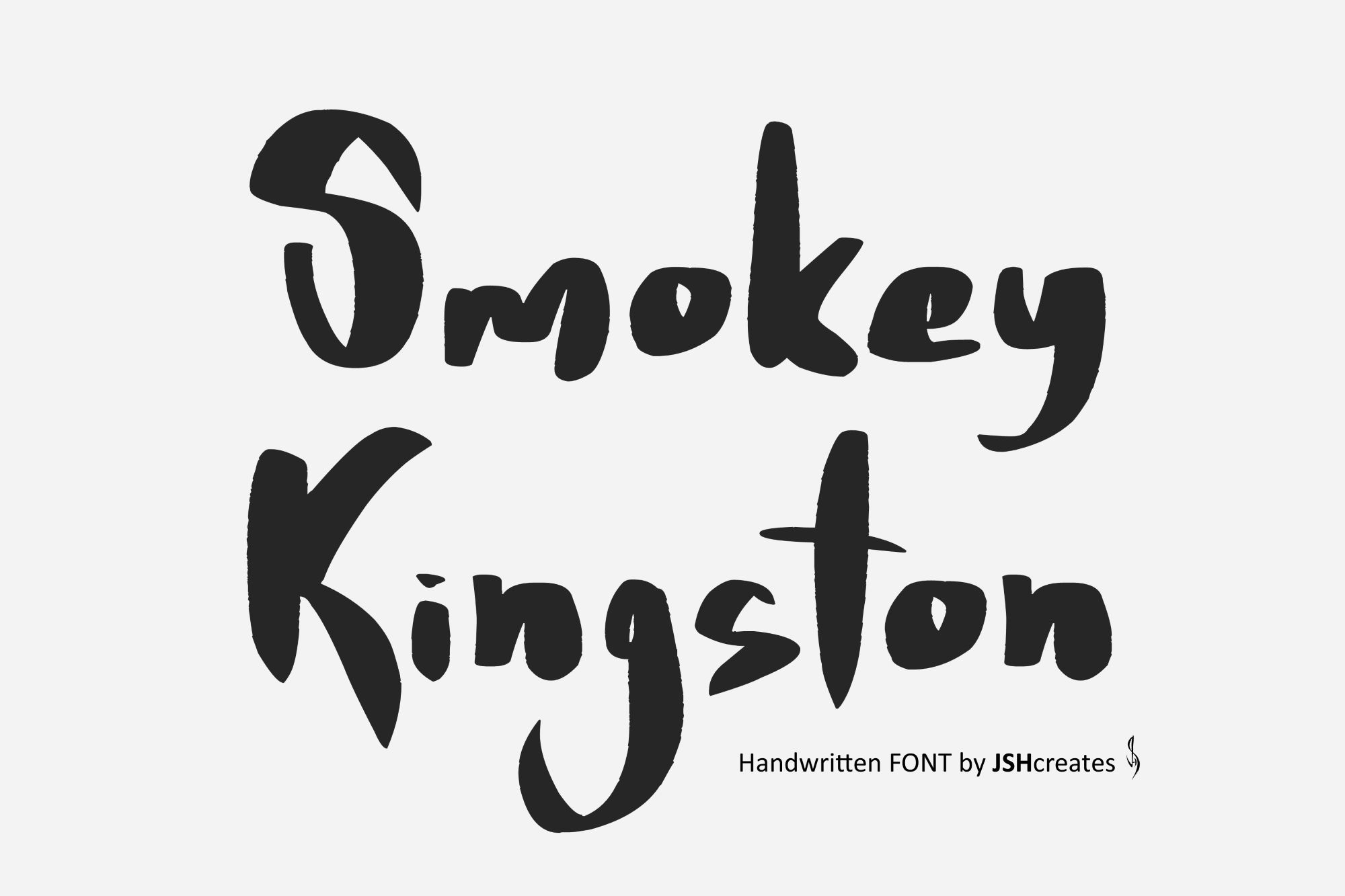
Smokey Kingston Font
Handlettered font. “Smokey Kingston”. Perfect for advertising and display purposes, including banners, book covers, shirts, posters, logos and much more!